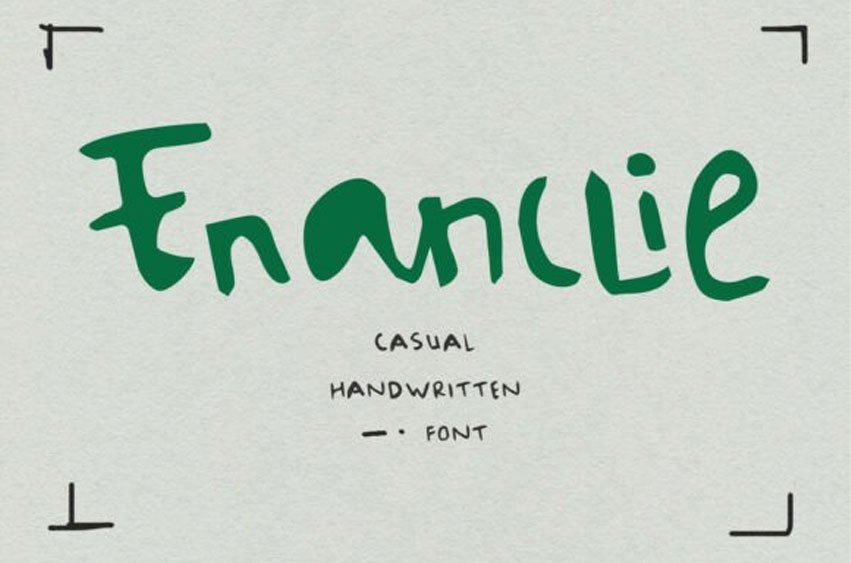
Enanclie Font is a quirky and authentic handwritten font with a carefree, casual charm. Its irregular strokes and playful letterforms give it a spontaneous, handmade feel—perfect for journals, creative posters, greeting cards, or social media graphics that want to stand out with personality.
Enanclie brings a dose of fun and authenticity to every project.